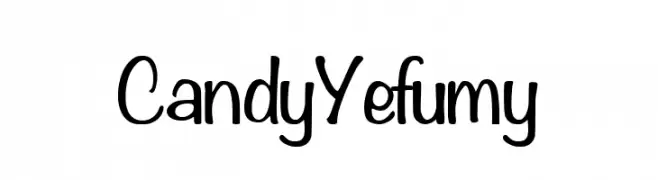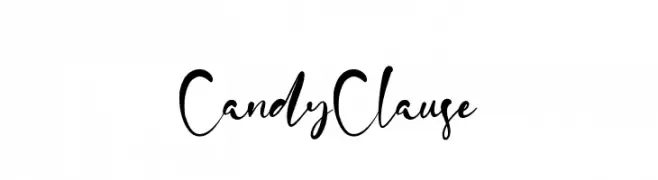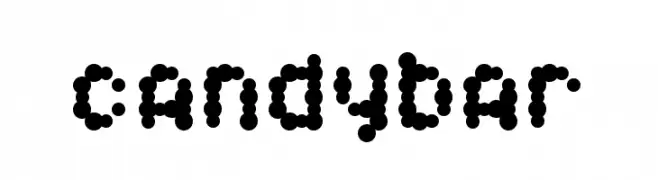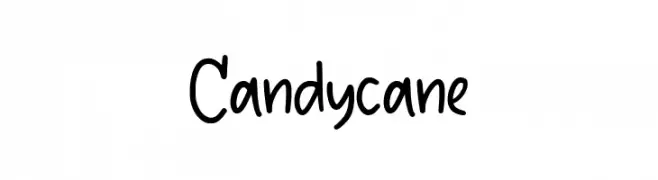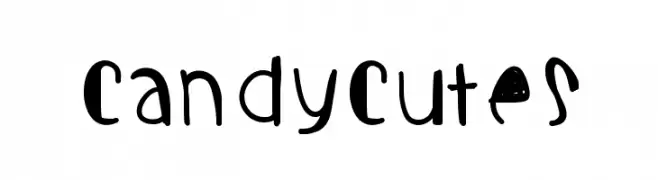
A bold, decorative font with a candy stripe pattern across each character.
A playful, handwritten font with a casual and friendly style.
A playful, handwritten font with smooth, rounded strokes.
A playful, handwritten font with a casual and friendly style.
A playful, whimsical script font with expressive flourishes and elegant curves.
A playful, hand-drawn font with a whimsical and casual style.
A bold, playful font with a candy-like, three-dimensional appearance.
A playful handwritten font with a casual and friendly style.
A playful, bold font with rounded, bubbly characters and a hand-drawn feel.